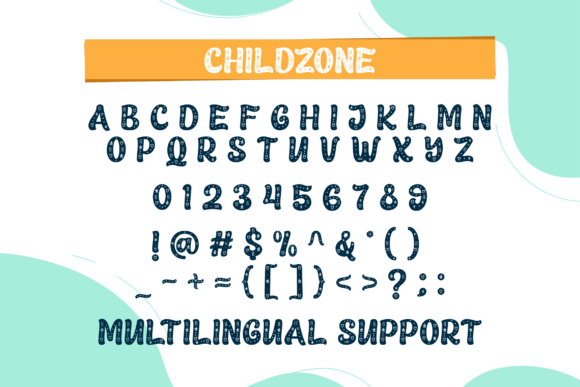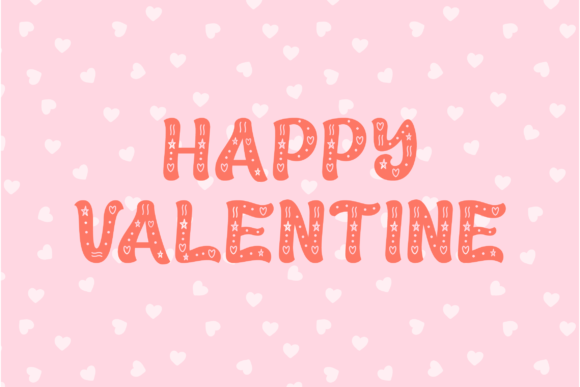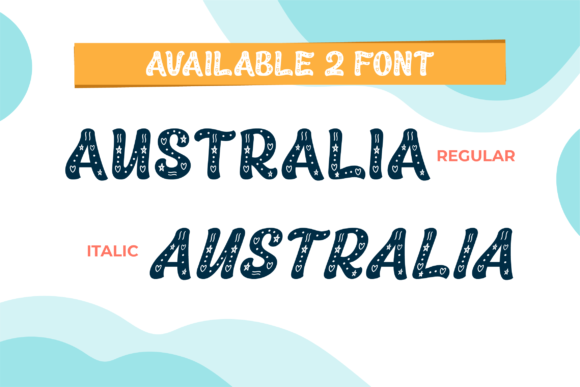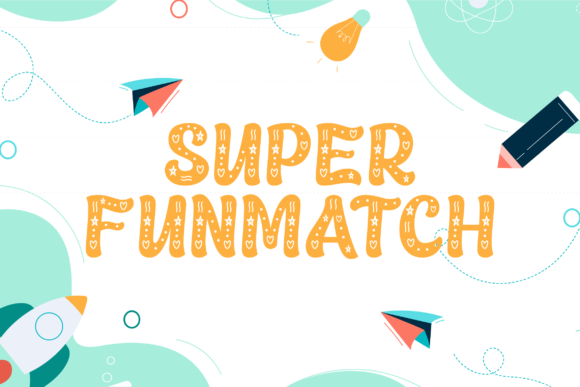
Introducing Childzone Font: The Ultimate Decorative Font for Crafty Designs
Are you a designer, crafter, or DIY enthusiast looking for a font that can add a touch of fun and playfulness to your projects? Look no further than Childzone Font! This cool and fun decorative font is perfect for elevating a wide range of crafting ideas, from cards and invitations to branding, labels, and more.
What is Childzone Font?
Childzone Font is a unique and creative typeface designed to bring a sense of joy and whimsy to your designs. Its playful and carefree style makes it an ideal choice for projects that require a touch of personality and charm. Whether you’re creating handmade cards, crafting custom labels, or designing branding materials, Childzone Font is sure to make your projects stand out.
Key Features of Childzone Font
- Unique and Playful Design: Childzone Font features a one-of-a-kind design that’s sure to capture the attention of your audience. Its playful and fun style makes it perfect for projects that require a touch of personality.
- Highly Versatile: This font is incredibly versatile and can be used for a wide range of projects, from crafting and DIY to branding and marketing.
- Easily Customizable: Childzone Font is easy to customize, allowing you to adjust the font size, color, and style to suit your project’s needs.
Benefits of Using Childzone Font
So, why should you choose Childzone Font for your next project? Here are just a few benefits of using this amazing decorative font:
- Adds a Touch of Personality: Childzone Font adds a unique and playful touch to your designs, setting them apart from the rest.
- Increases Engagement: The fun and carefree style of Childzone Font is sure to capture the attention of your audience and increase engagement.
- Perfect for Branding: This font is ideal for branding projects, as it helps to create a memorable and recognizable identity for your business or product.
- Easy to Use: Childzone Font is incredibly easy to use, even for those with limited design experience.
Ideas for Using Childzone Font
Now that you know more about Childzone Font, here are some ideas for using it in your next project:
- Handmade Cards: Add a touch of personality to your handmade cards with Childzone Font.
- Custom Labels: Create custom labels for your products or business using Childzone Font.
- Branding Materials: Use Childzone Font to create memorable branding materials, such as logos, business cards, and brochures.
- DIY Projects: Add a playful touch to your DIY projects, such as scrapbooking, journaling, and crafting.
In conclusion, Childzone Font is a cool and fun decorative font that’s perfect for designers, crafters, and DIY enthusiasts. Its unique and playful design makes it an ideal choice for a wide range of projects, from handmade cards and custom labels to branding materials and DIY projects. With its highly versatile and easily customizable design, Childzone Font is sure to elevate your creations and help you achieve professional-looking results. So why wait? Add Childzone Font to your favorite creations today and let yourself be amazed by the outcome!